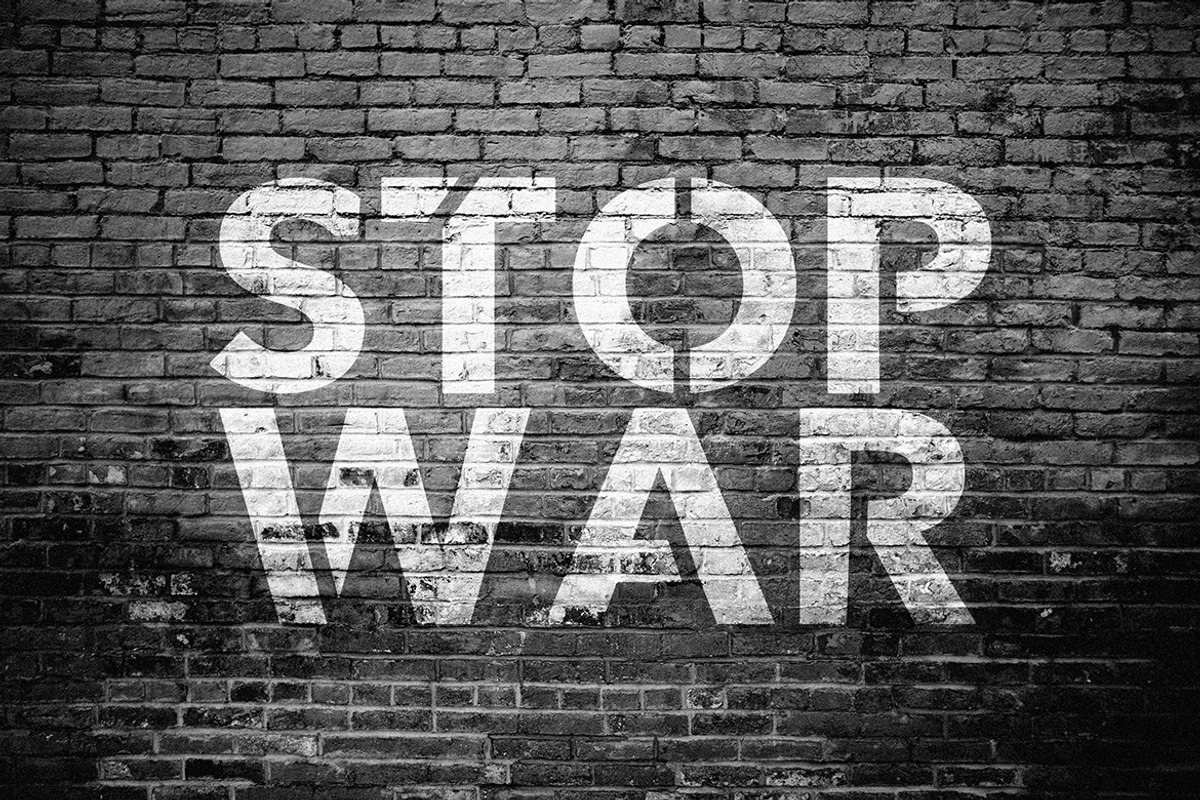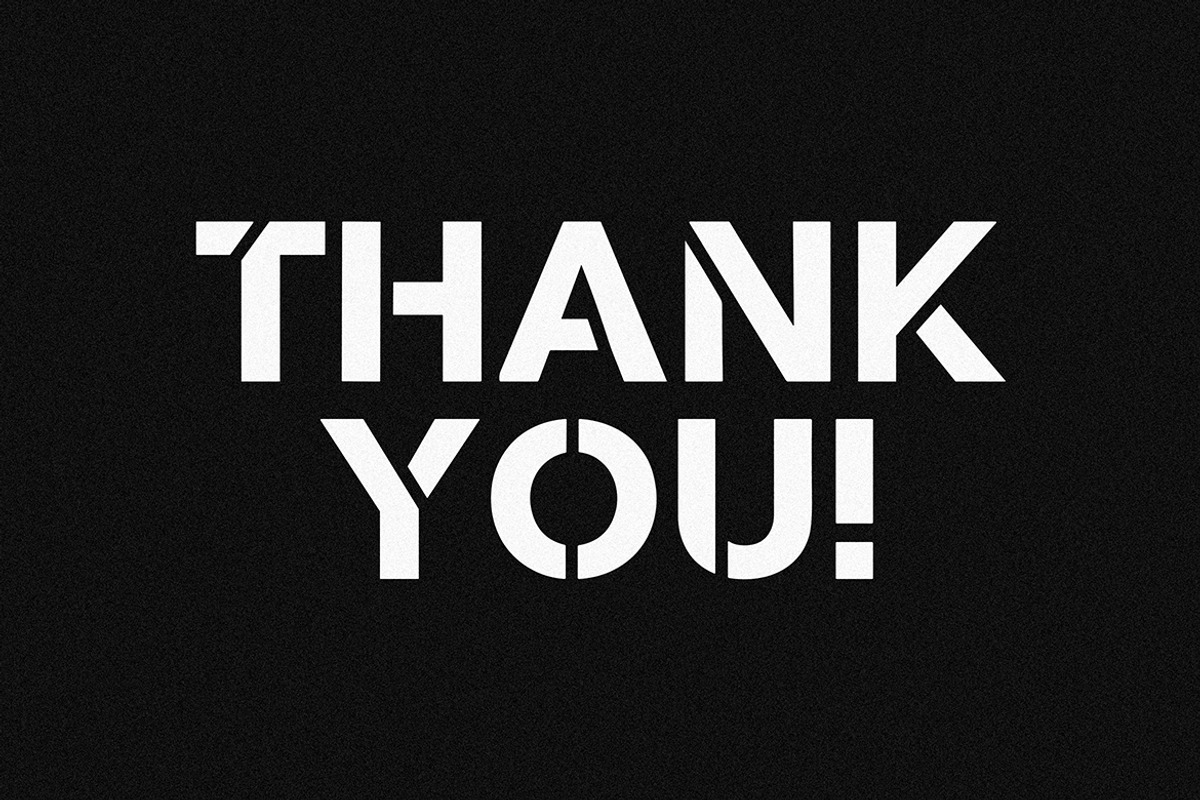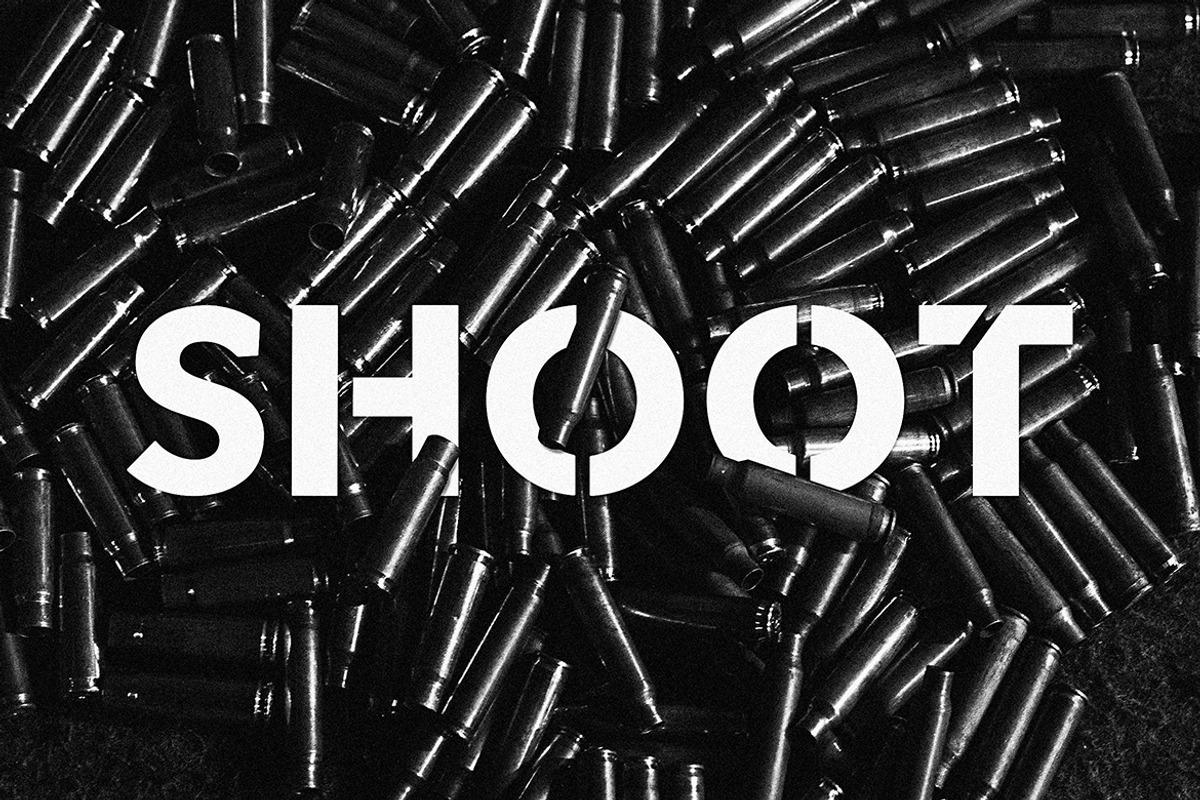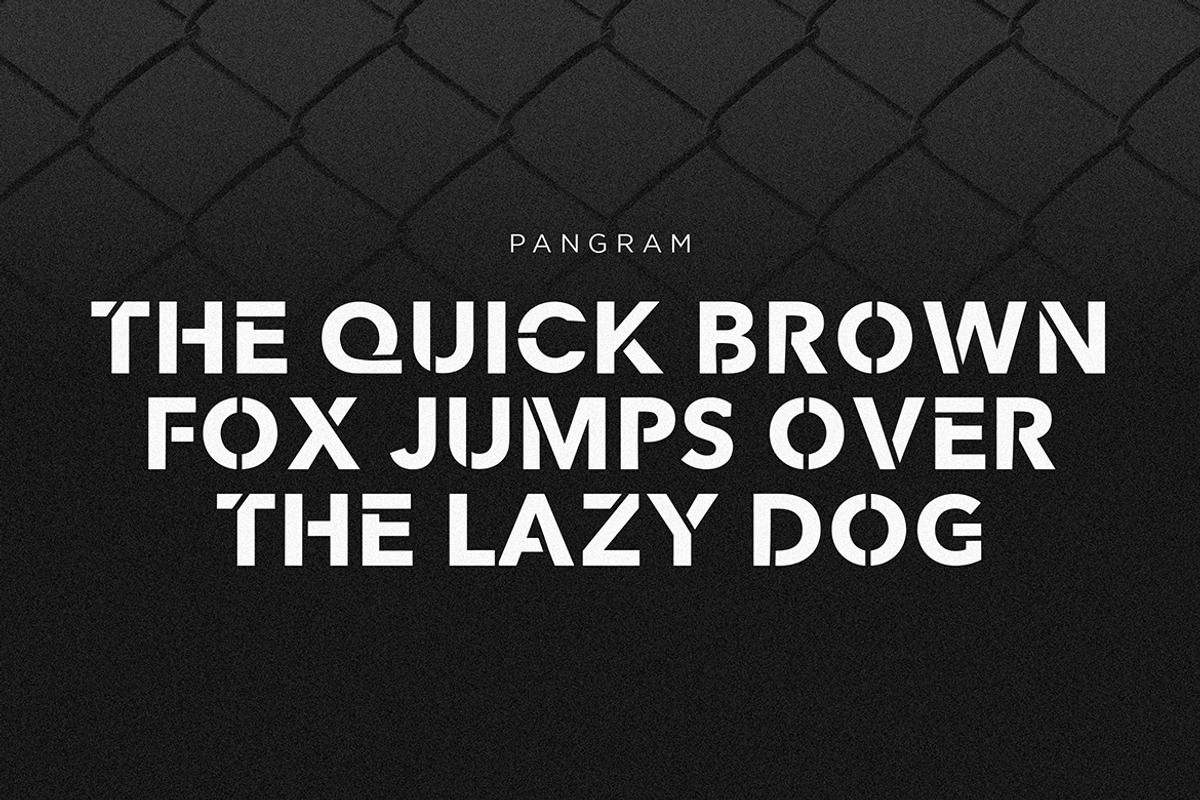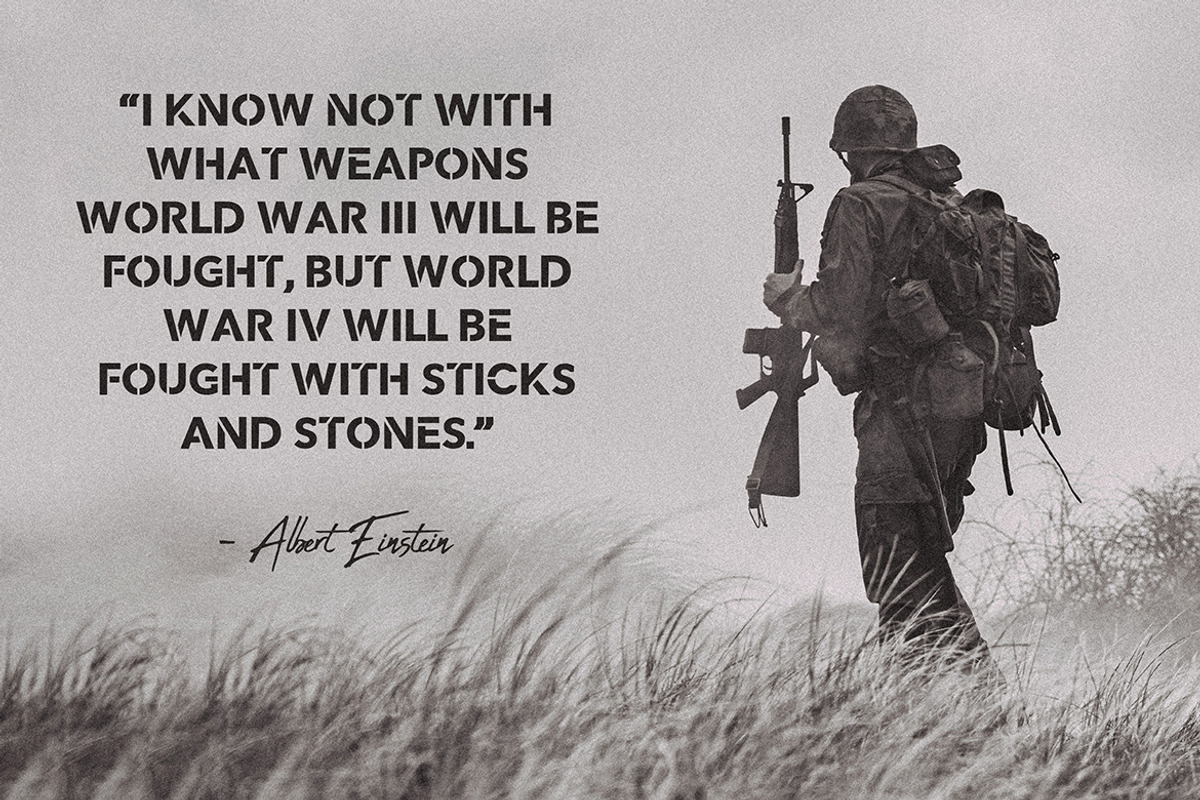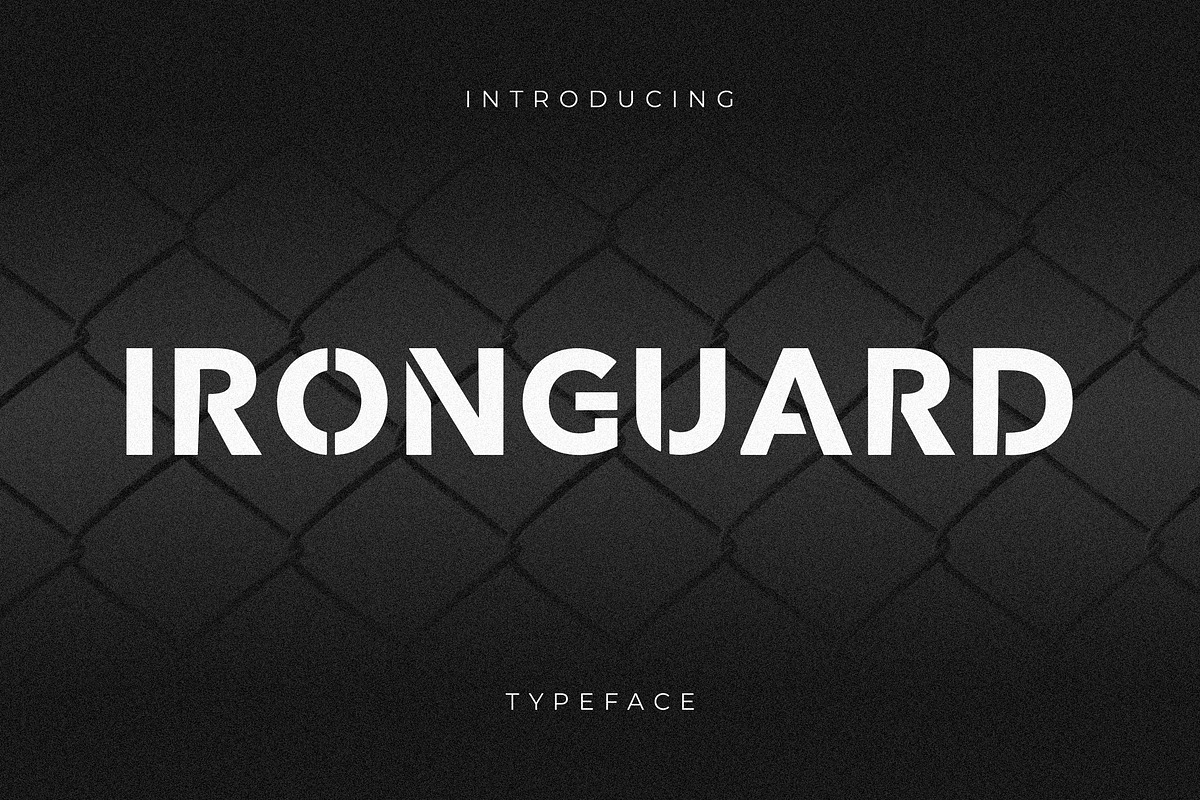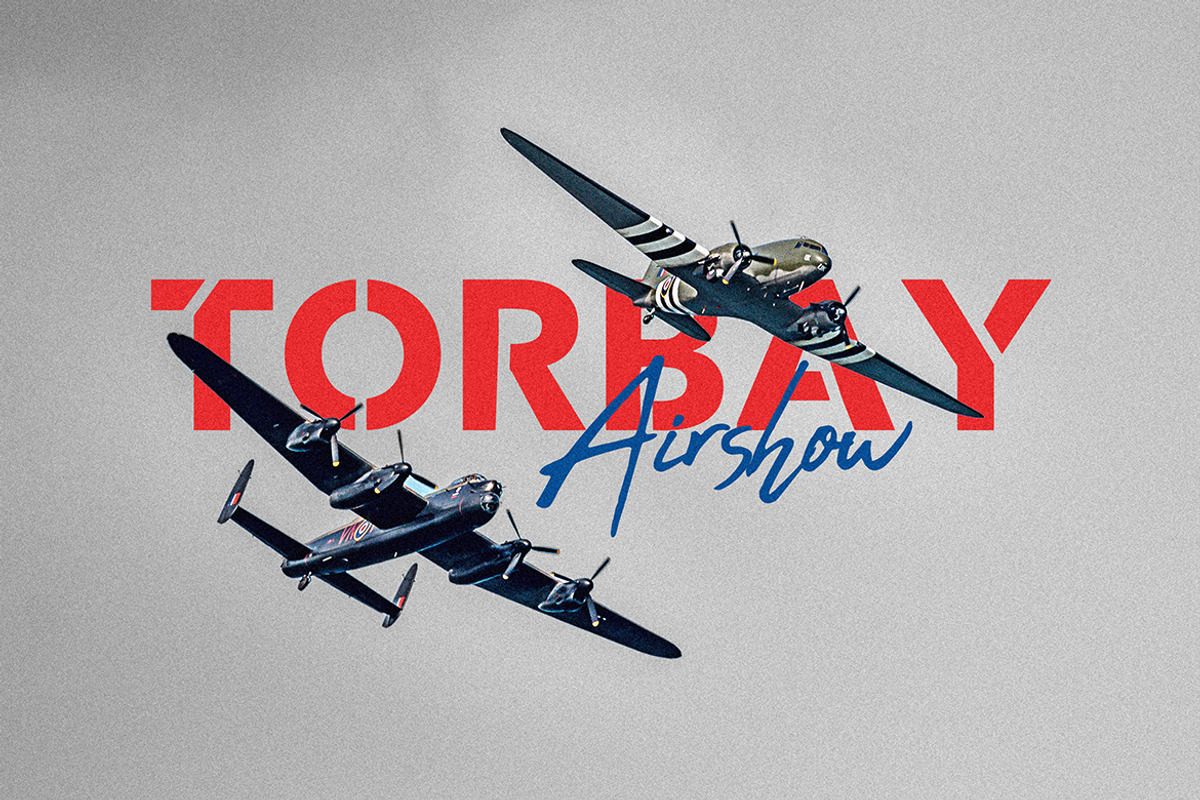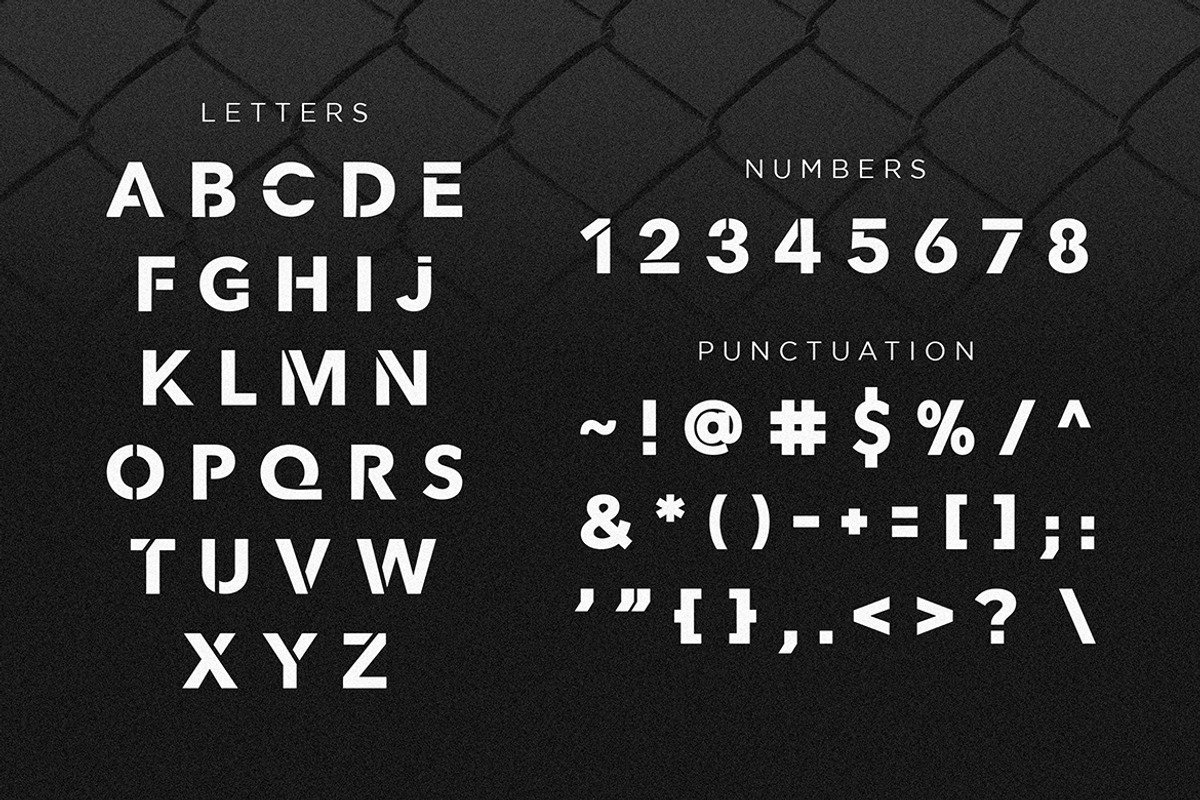
Iron Guard
IronGuard is a Display Font that we designed with original touch for your needs. This cool font is complete with Uppercase, Lowercase, Numeric & symbols. This very strong and sharp font is perfect for titles, typography, posters, magazines, brochures, packaging, Websites and much more for your design needs, making your designs more cool.